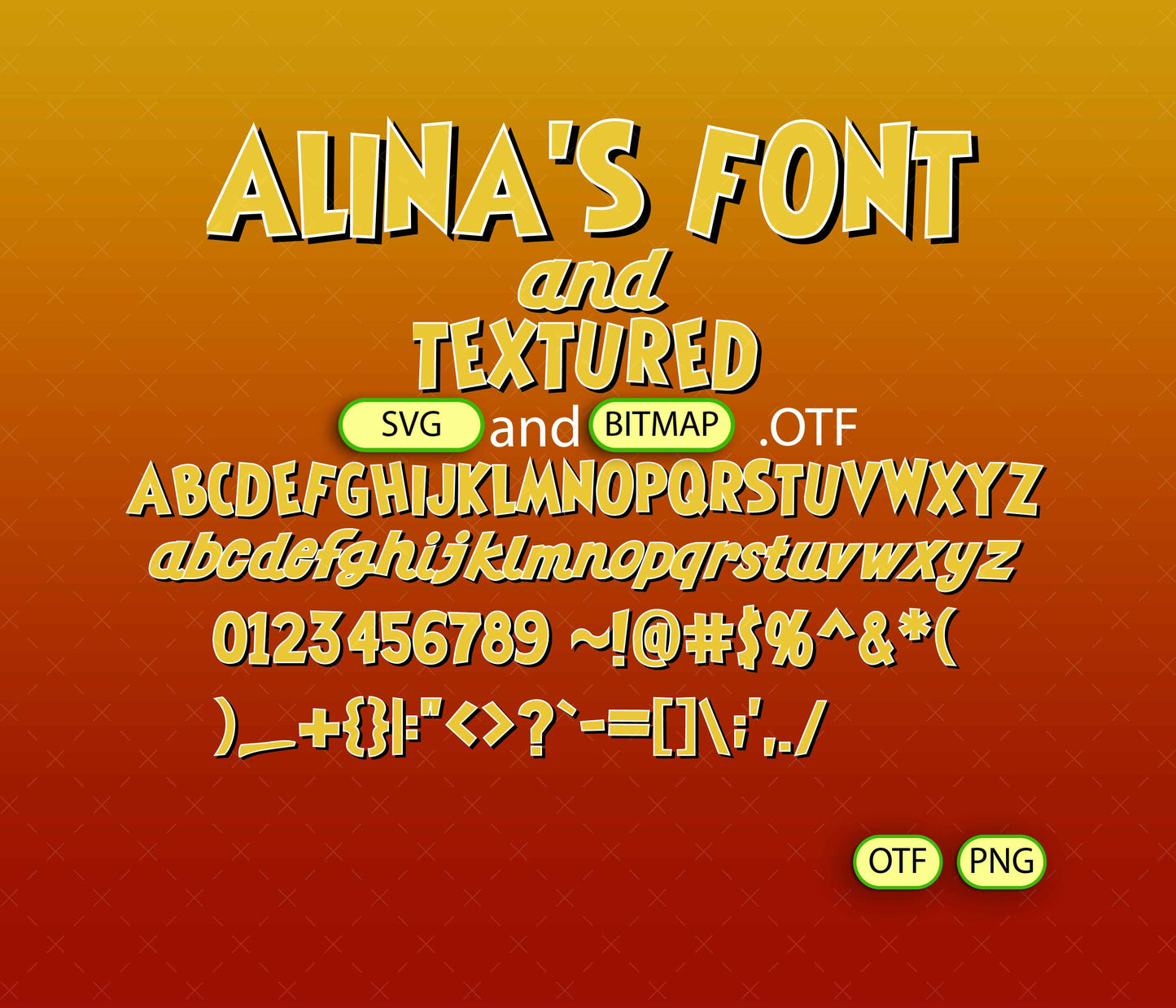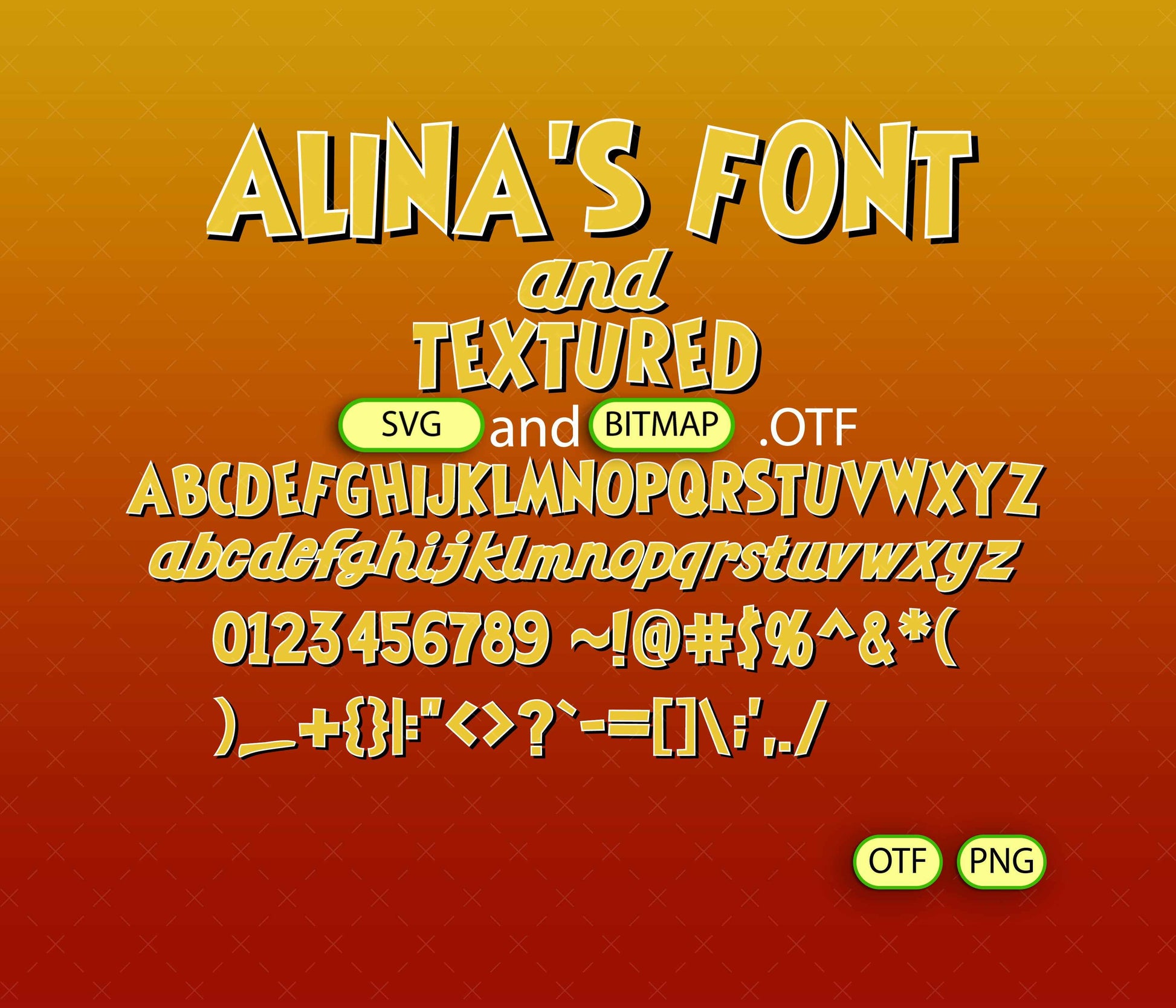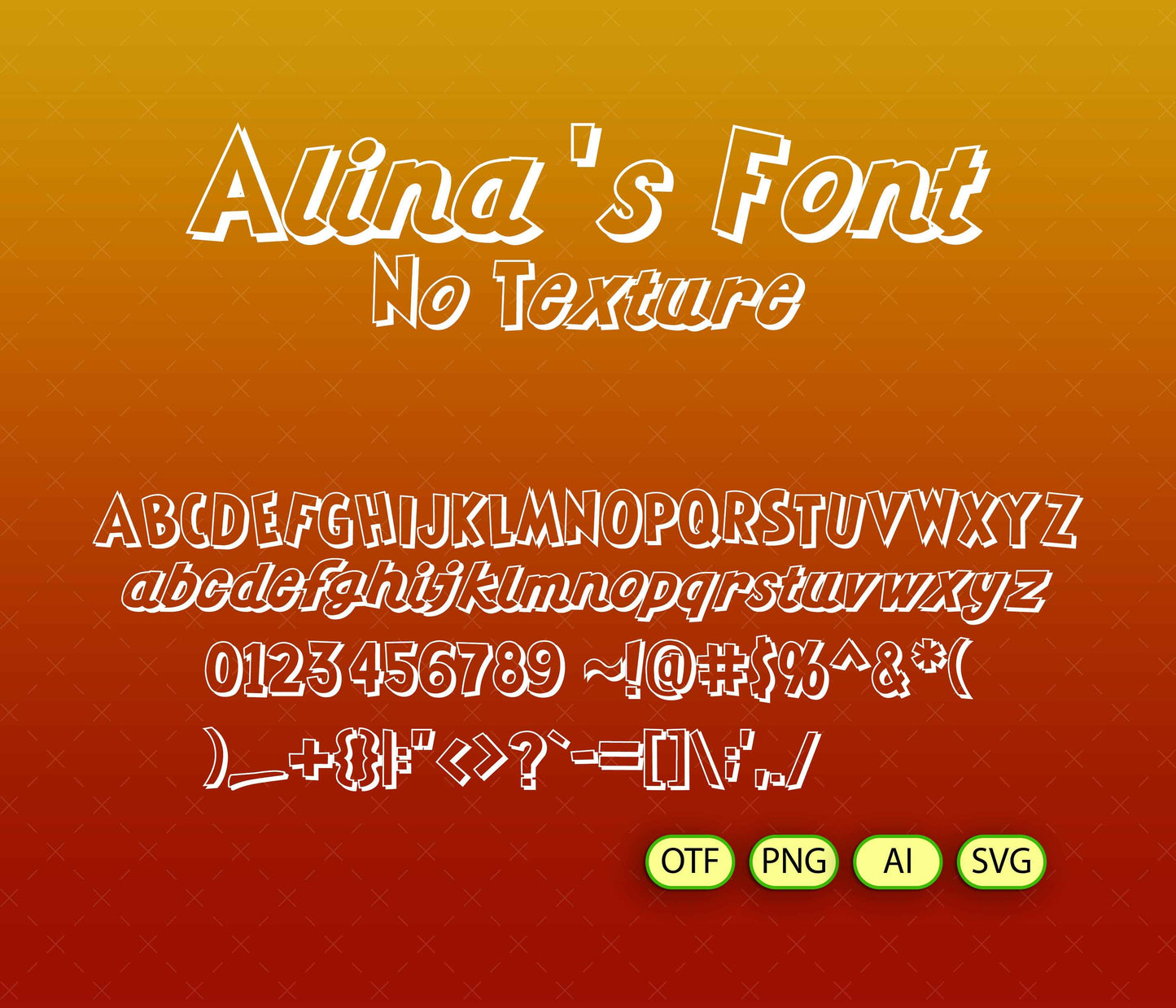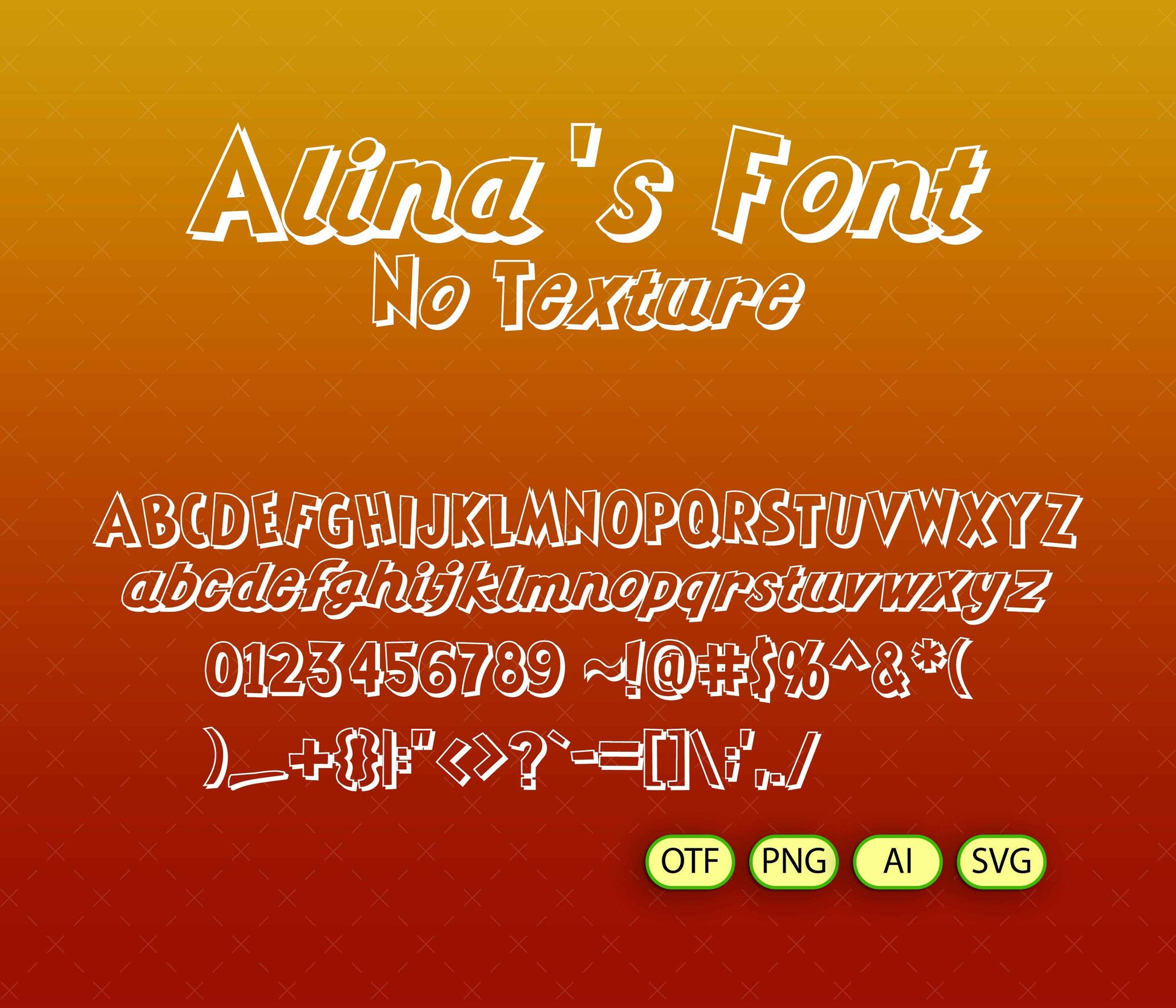
Feline Frenzy Font Textured
Dart into the comical world of animated rivalry with the Feline Frenzy Cat And Mouse Textured Font
This font captures the timeless capers and playful antics of a beloved cat and mouse duo. Each letter in this textured font mirrors the whimsical chase and mischievous escapades that keep us all entertained.
The Feline Frenzy Textured Font is your pass to a typographic comedy, perfect for crafting humorous cake toppers, lively birthday invitations, or playful t-shirt designs. This font is a medley of laughter and capers, ensuring every creative endeavor is infused with the spirited rivalry and humor of classic cartoon characters.
With its comedic characters and lively aesthetics, this font isn't just a set of letters; it's a jaunt into a humorous world of animated mischief, turning every project into a narrative filled with laughter and playful antics. Whether you're designing for a children's party, creating merchandise inspired by classic cartoons, or simply want to add a touch of whimsy to your work, the Feline Frenzy font offers a perfect blend of nostalgia and fun.
Let your imagination run wild as you craft designs that capture the essence of timeless animated rivalries. Each letter becomes a miniature scene, telling its own story of chase and escape within the larger narrative of your design.